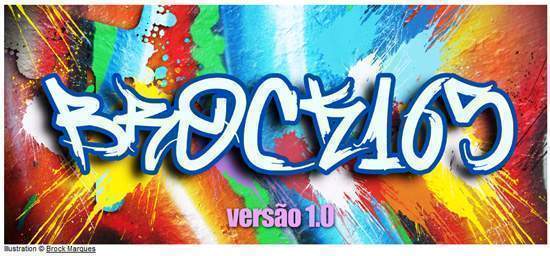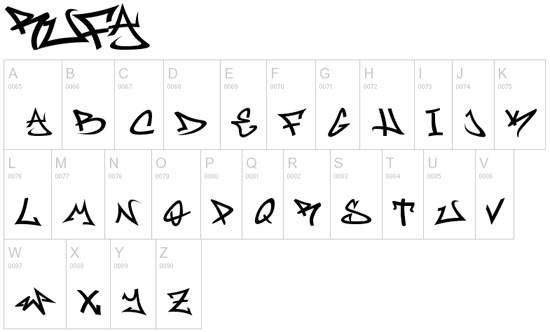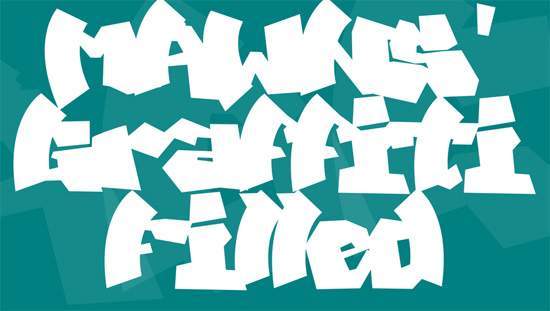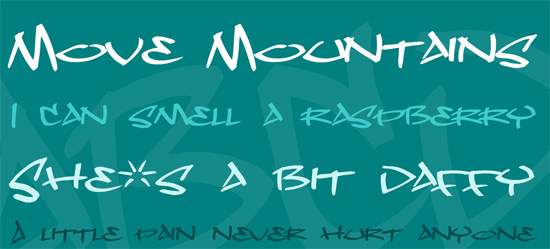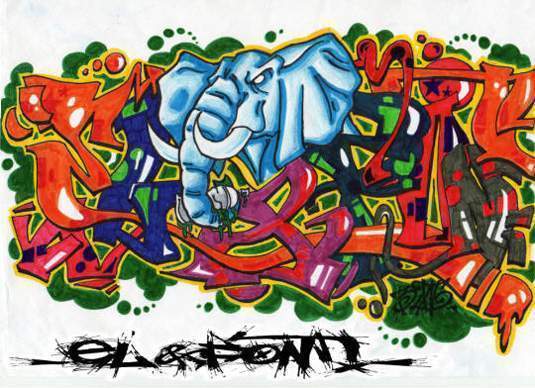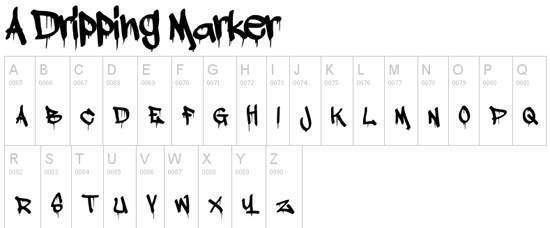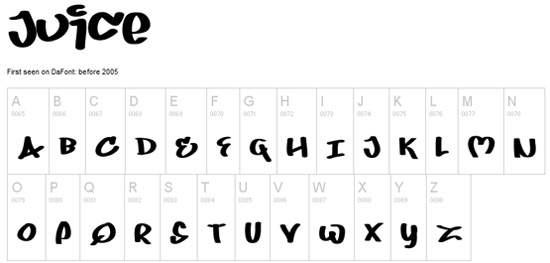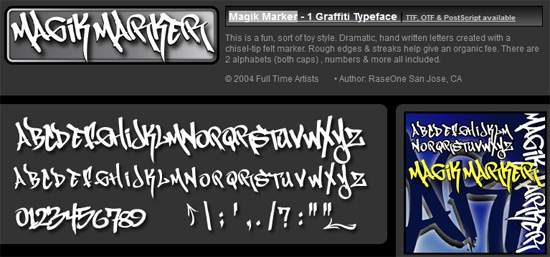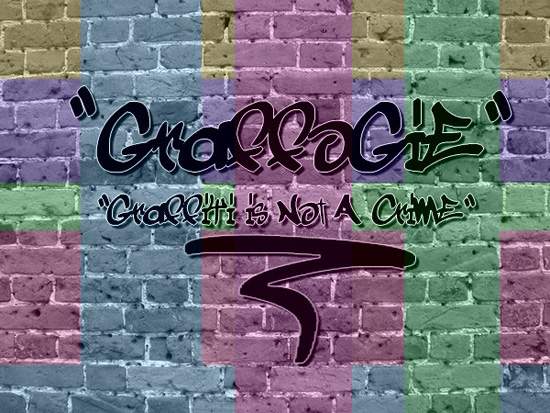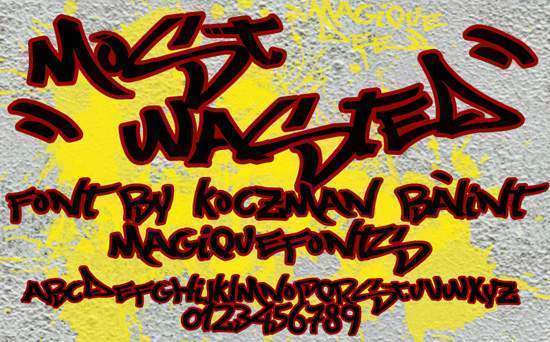
Looking to bring bold street-style vibes into your next design? You’re in the right place. We’ve curated a collection of the best free graffiti fonts that will instantly give your work a powerful urban edge. These urban style fonts are ideal for adding energy, attitude, and creativity to your visual projects.
Why Use Graffiti Fonts in Design
Graffiti typefaces capture the spirit of street art — rebellious, expressive, and full of personality. Whether you’re working on posters, album covers, streetwear branding, flyers, or social media graphics, graffiti fonts help you create designs that stand out and feel authentic.
From edgy and angular tags to bubbly throw-up styles, this collection offers a wide variety of creative looks. You can use them to reflect different moods — from raw and urban to playful and colorful.
Design Tips for Using Graffiti Fonts
When working with graffiti-style typography, balance is key. Combine bold graffiti headlines with clean supporting fonts for readability. Add grunge textures, spray-paint overlays, or vibrant color gradients to give your design a real street-art atmosphere.
These free graffiti fonts work especially well in hip-hop, music, or youth-focused projects where individuality and attitude matter most.
1. Marsneveneksk Font
2. WildStyle Font
3. Stylin’ BRK Font
4. Graffogie Font
4. Most Wasted Font
5. Street Writer Font
6. Searfont Font
7. Ruthless One Font
8. Degrassi Font
9. Throwupz Font
10. Bored Schoolboy Font
11. Wassimo Graffiti Font
12. Urban Hook-Upz Font
13. Brock165 Font
14. Rufa Font
15. Brushtip-C Font Family Font
16. kaliGraff Font Family Font
17. PWGraffiti Font
18. MAWNS’ Graffiti Filled Font
19. Dope Jam Font
20. El&font Block Font
21. Brock Vandalo Font
22. A Dripping Marker Font
23. Juice Font
24. RapScript Font
25. GraffPity Font
26. Subway Font
27. 5 Cent Font
28. Magik Marker Font